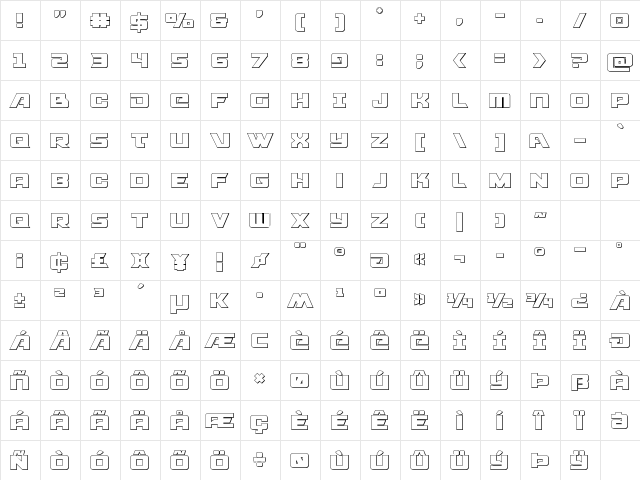
Aircruiser Outline Free Font
Aircruiser Outline Outline
Style: Outline
Design Context for Aircruiser Outline
Aircruiser Outline is built around its visual character rather than neutral utility - its distinctive forms are designed to make an impression at display sizes.
Font Pairing: Pair with a clean neutral sans-serif for body copy to let Aircruiser Outline's character lead without overwhelming the composition.
Pro Tip: Use Aircruiser Outline exclusively at display sizes - it was designed to be seen, not read at length. Let a neutral companion handle body copy.